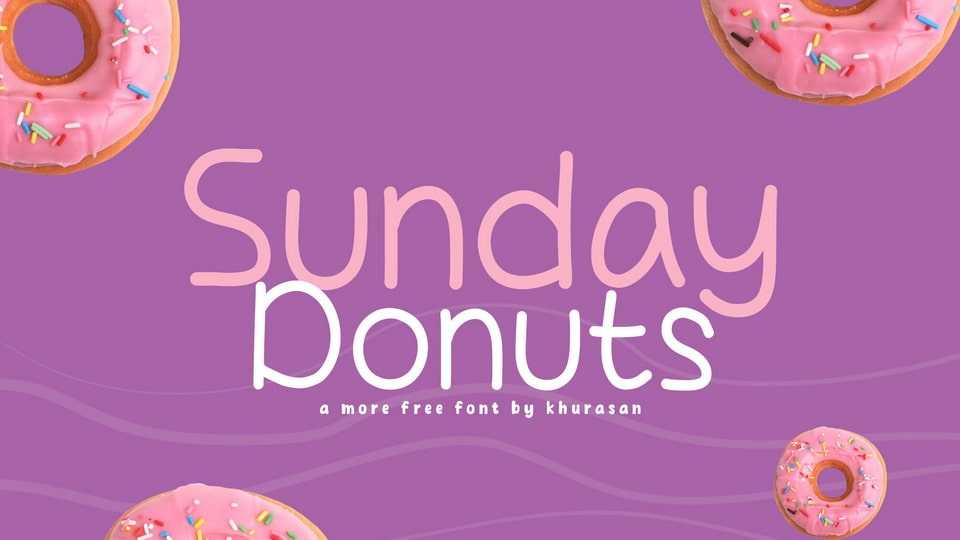
Download Sunday Donuts font, a typeface that brings your designs to life with a touch of hand-drawn charm and comic book flair. Each character is thoughtfully designed to capture the spontaneity and humor found in the pages of your favorite comics.